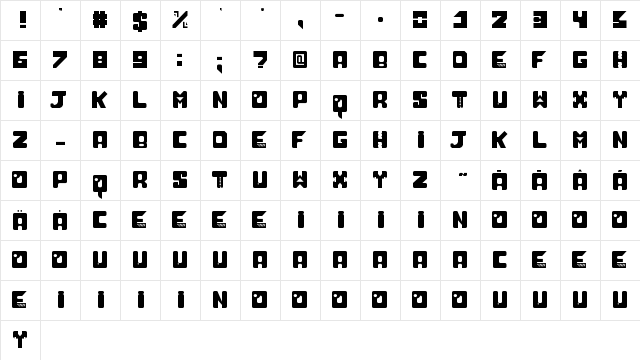
Neo Sci-Fi v2.0 Regular
| Designer | BryanGu |
Design Context for Neo Sci-Fi v2.0 Typeface
Neo Sci-Fi v2.0 channels digital-age aesthetics through its sharp, structured letterforms — ideal for brands that want to signal innovation.
Pro Tip: Try Neo Sci-Fi v2.0 with generous letter-spacing in UI labels and navigation — the geometric forms benefit from room to breathe.